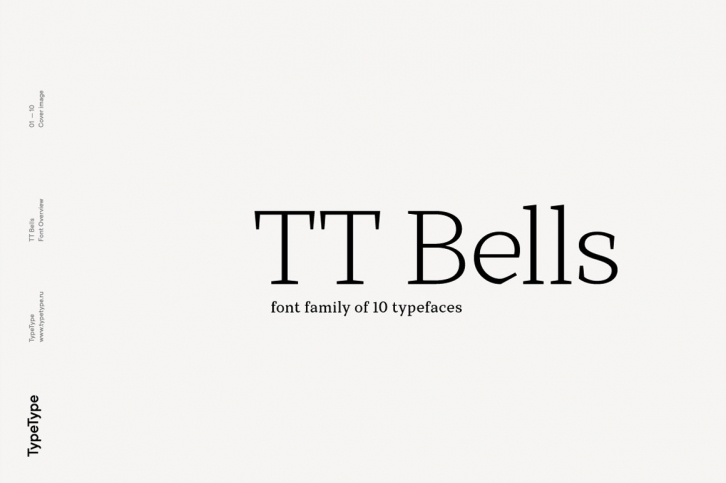
TT Bells—modern antiqua with classic intonations!
- 5 weights & 5 true Italics
- 528+ glyphs for each typeface
- Supports 70+ languages (incl. Cyrillic)*
- OpenType features**
TT Bells combines the elegant softness of antiqua with a complex and daring temper reflected in straight stroke terminals and arrowheaded serifs. The family is based on broad nib, which was typi-cally used for old style fonts and creates these hallmark terminals and serifs. We've taken the best from old style fonts created before the digital age and added sharp and contemporary geometric shapes to the traditional style. That’s how TT Bells refers the spectators and font enthusiasts to the origins and, at the same time, reminds us that we live in the digital era when geometry and screens rule the world.
TT Bells is suited for different types of text—from the shortest headings to large text arrays. When the font size is decreased, the boldness and sharpness of the font soften, it becomes more classic. The fontfamily is created according to the traditional TypeType formula (Thin, Light, Regular, Bold, Black & Italics)! We've also enabled the support of a broad number of OpenType features, which will help you widen the implementation range for this family: tnum, onum, pnum, numr, dnom, frac, case, ordn, subs, sups.